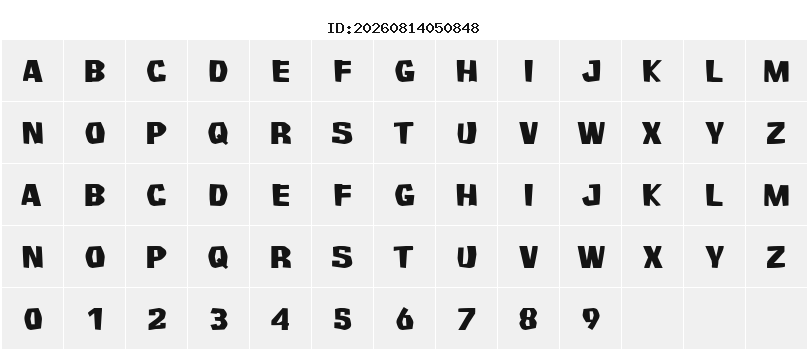
• Font Name: Survivant
• Full Font Name: Survivant
About Survivant.ttf
Survivant.ttf is a modern, elegant sans-serif font designed for ultimate readability and visual harmony. Perfect for branding, headlines, web design, and print materials.